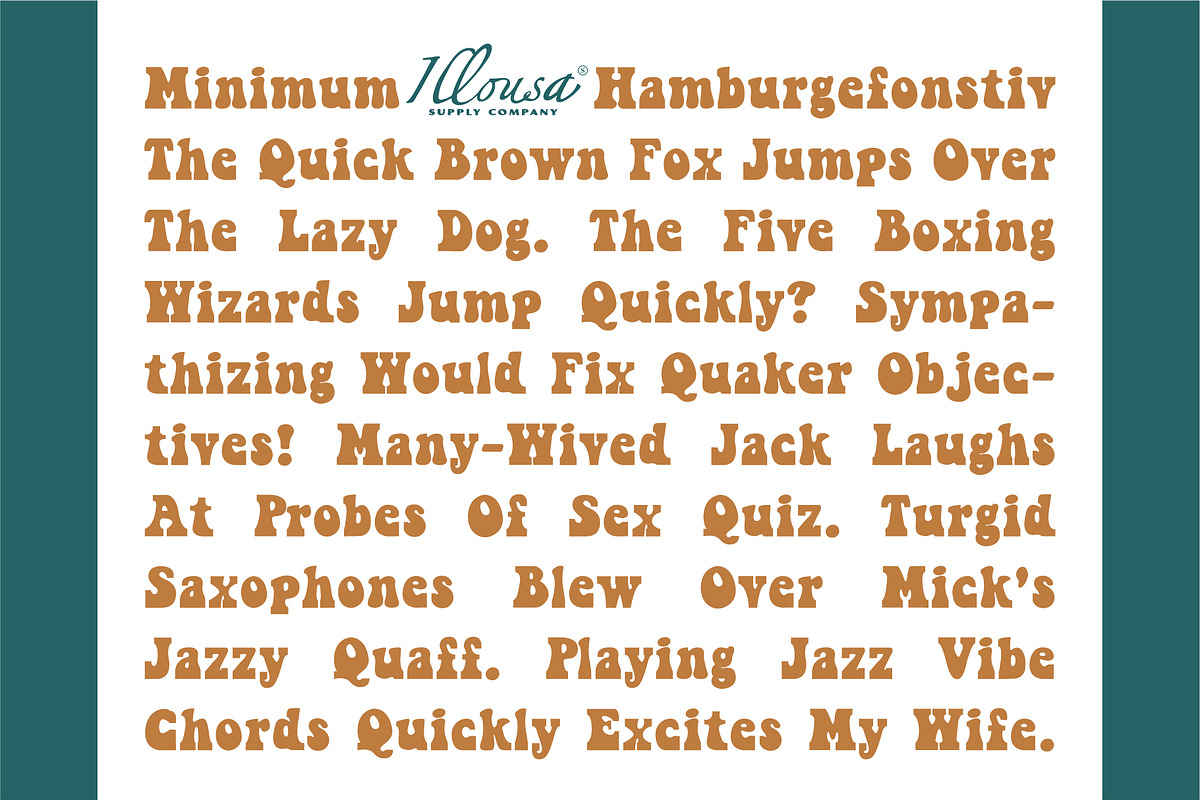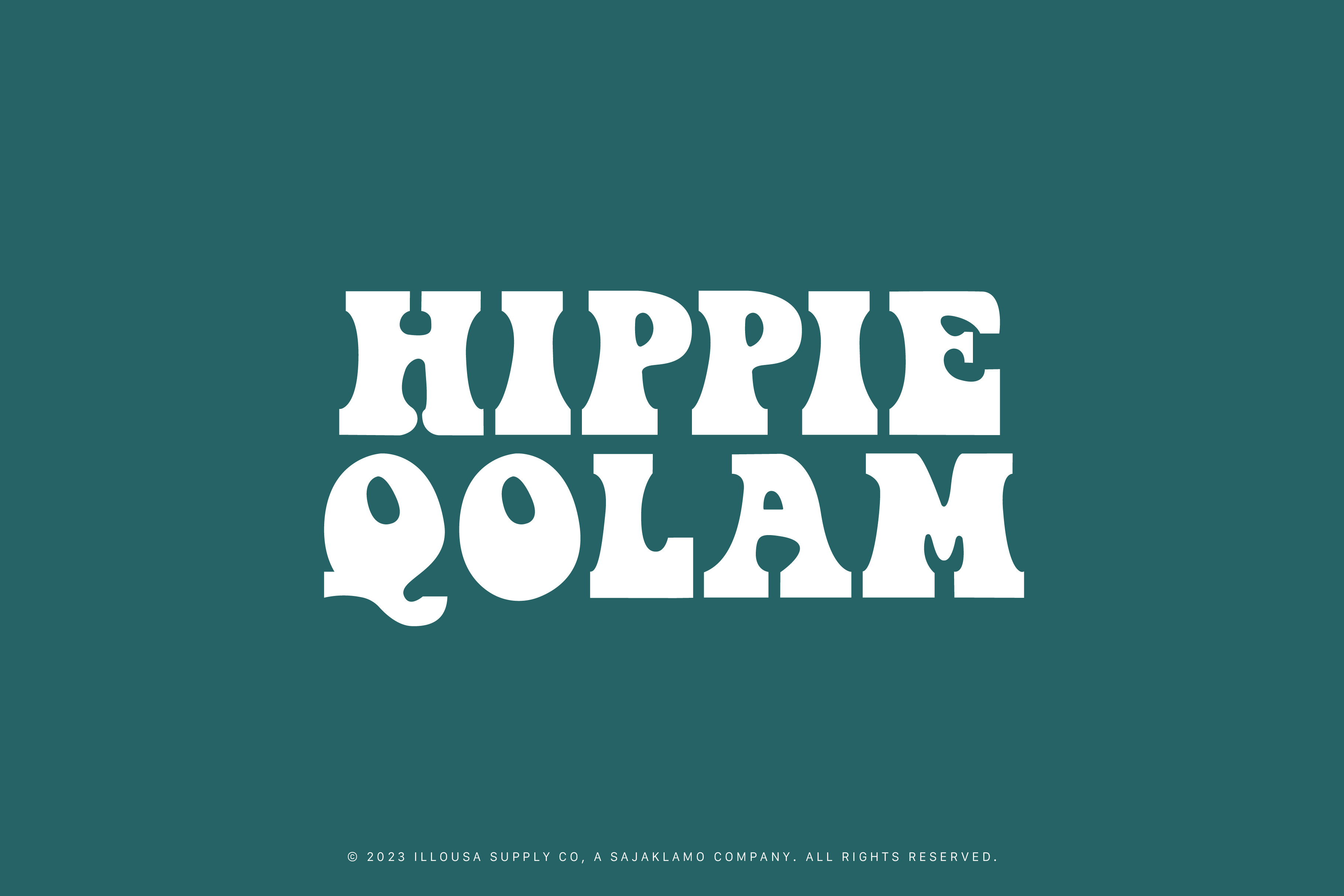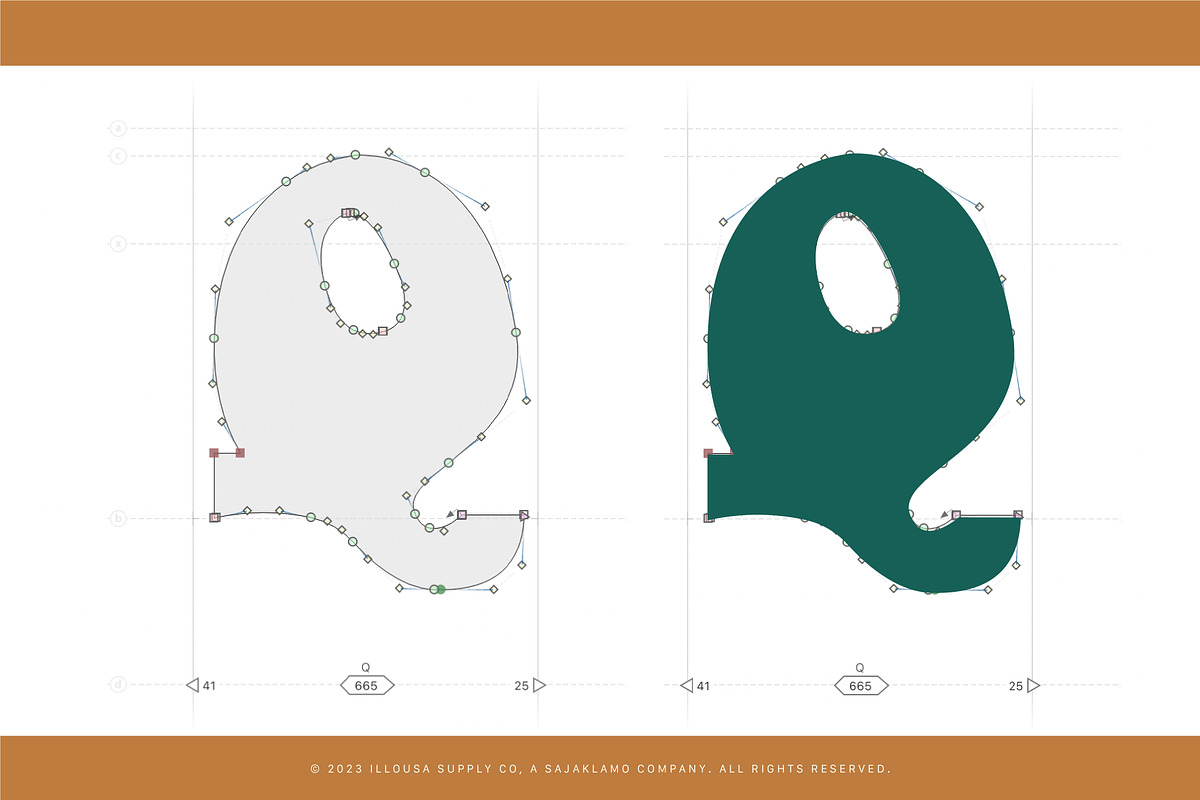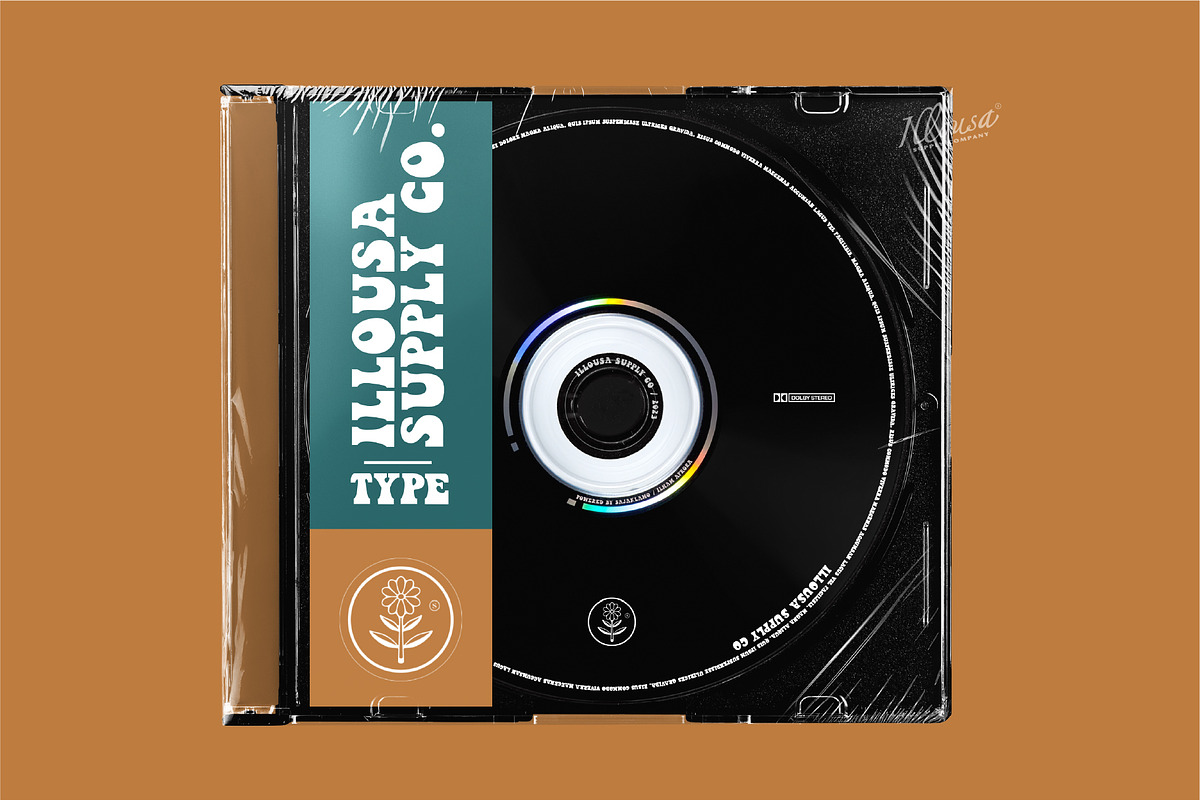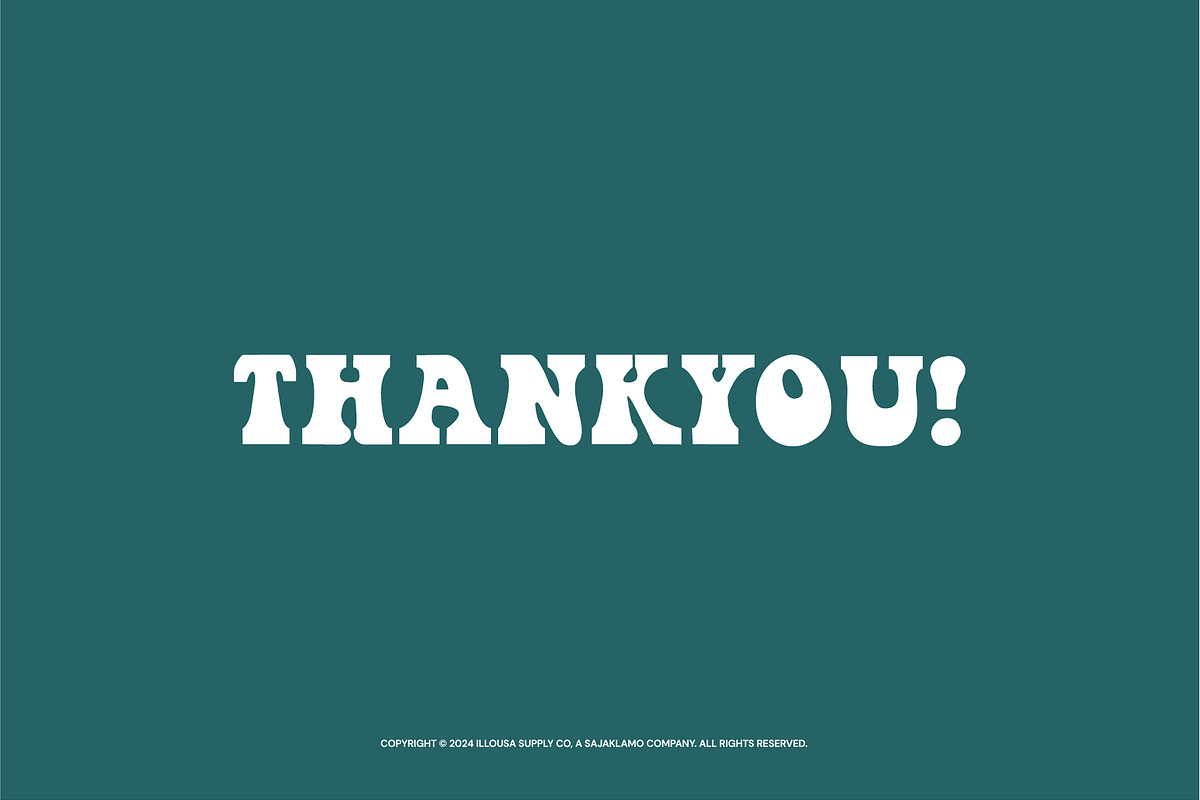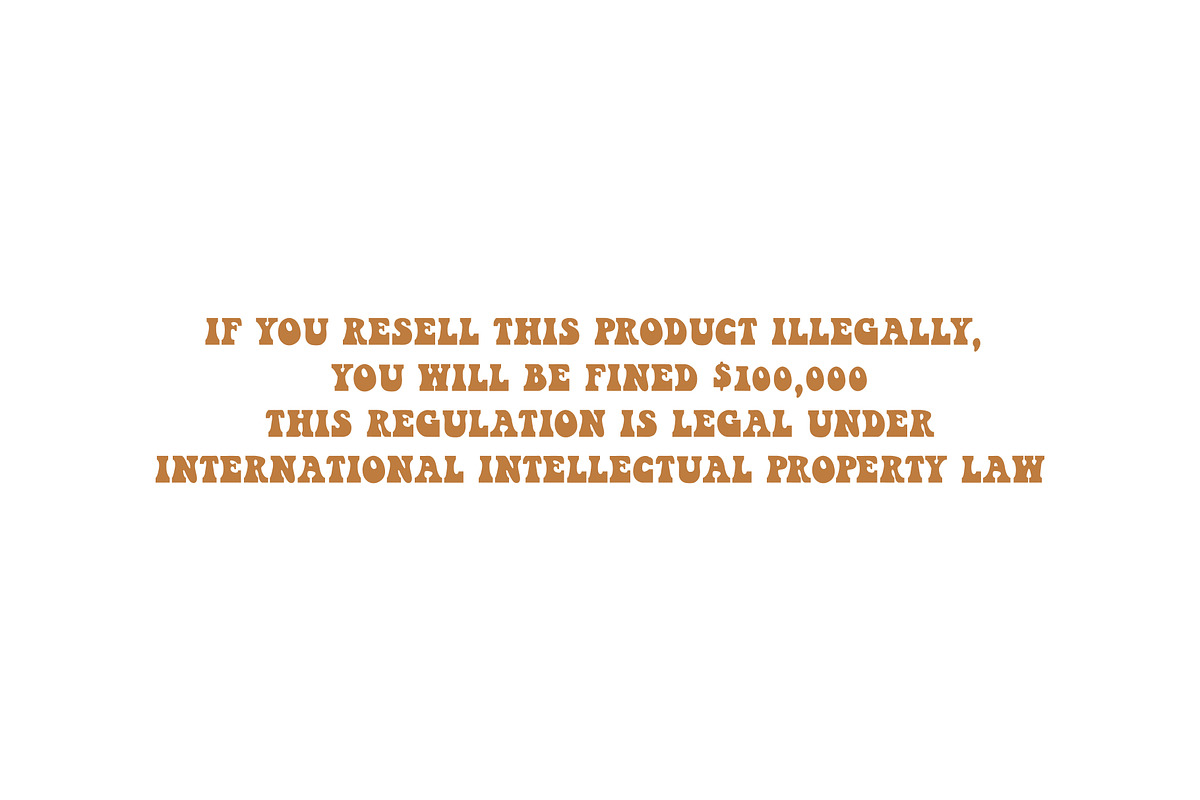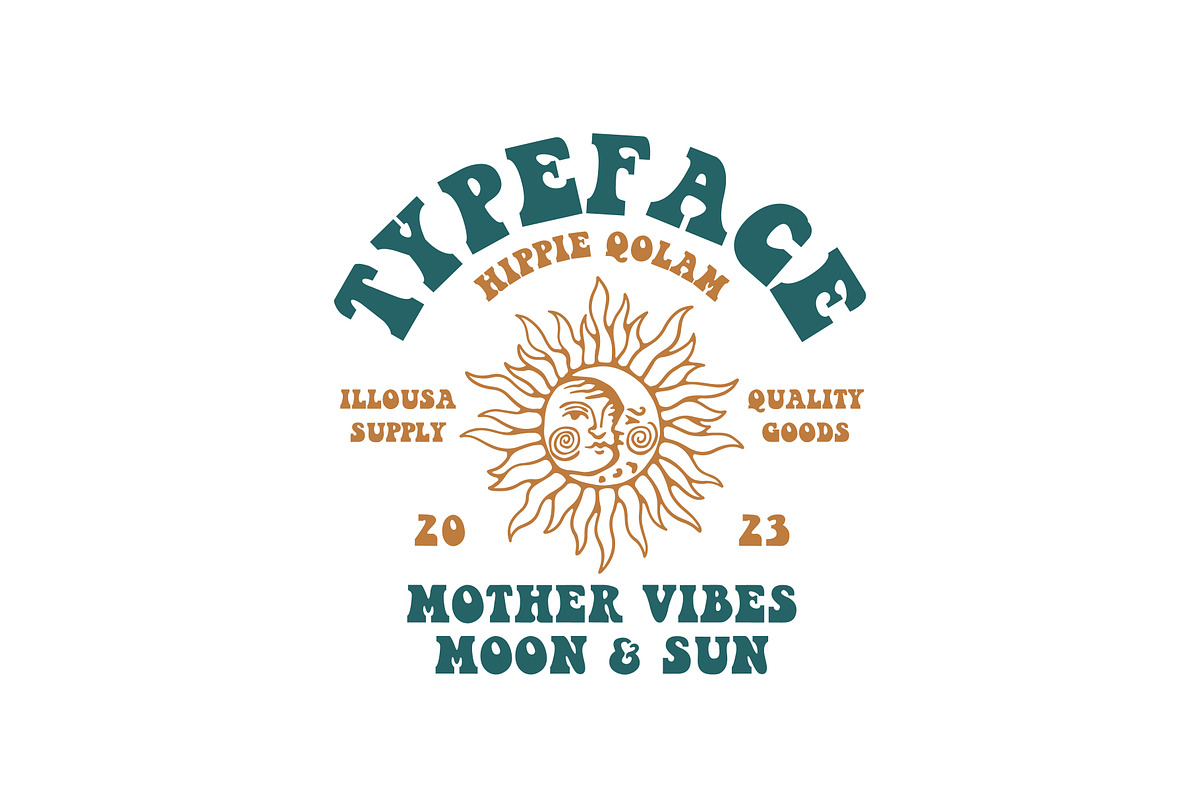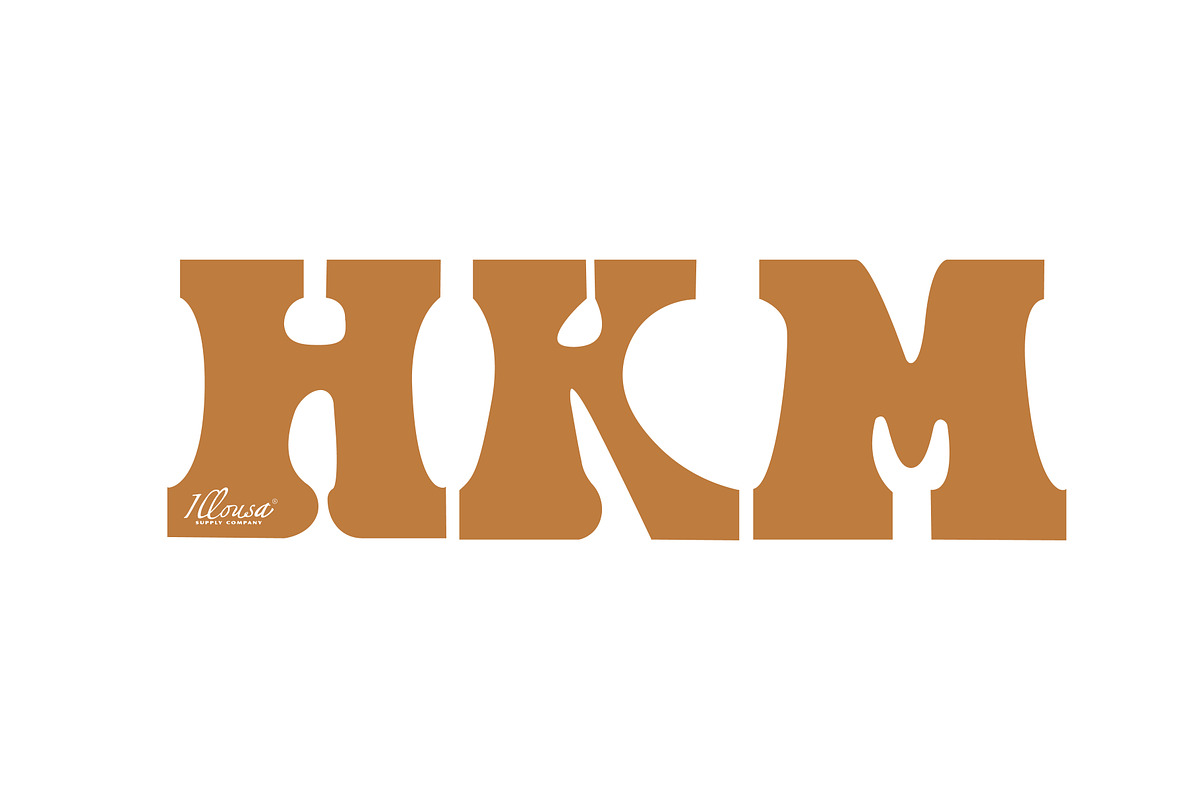
Hippie Qolam | Psychedelic Typeface
INTRODUCTION
HIPPIE QOLAM
Hippie Qolam is a Typeface inspired by Hippie Culture & Psychedelic Art , and is perfect for a variety of uses. Recommend for branding project, Merch design, Poster design and Packaging Design. Available for multilingual glyphs.